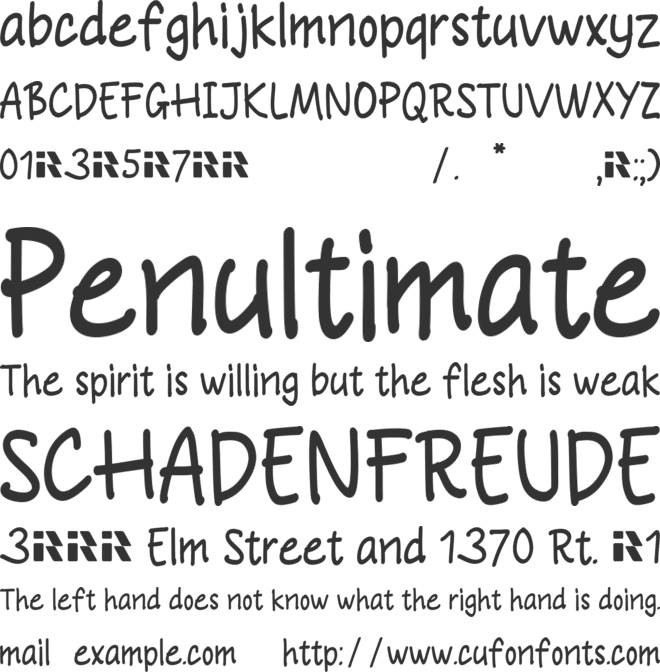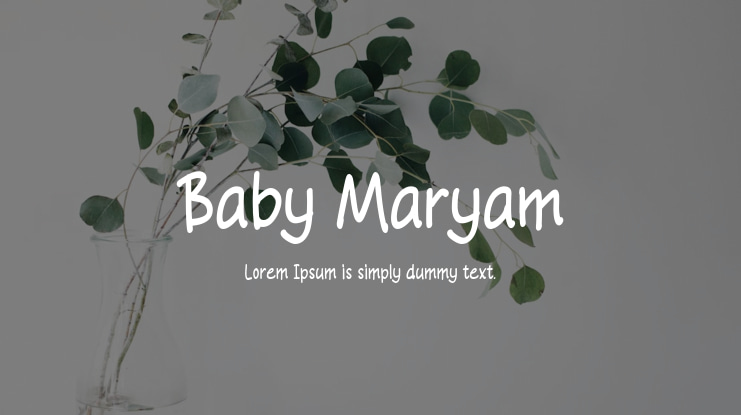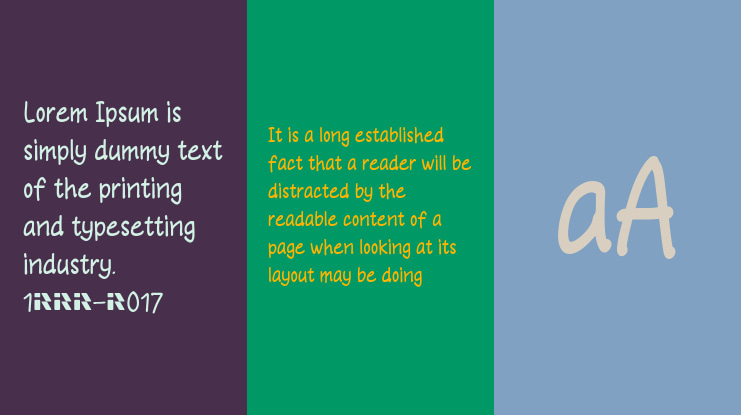
Baby Maryam Font
Muhammad Bayu Ramadhan
The Baby Maryam font boasts a cute and unique handwriting style. It is handwritten with natural characters, adding a charming and distinct feel.